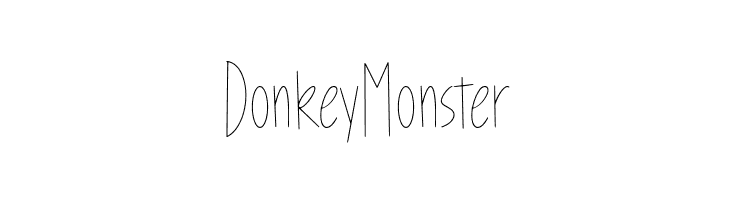
A playful, handwritten font with tall, narrow, and thin letterforms.
A playful, hand-drawn font with tall, narrow letters and a whimsical style.
A modern, artistic font with tall, narrow letterforms and elegant curves.
A whimsical and elegant font with tall, narrow characters and a hand-drawn quality.